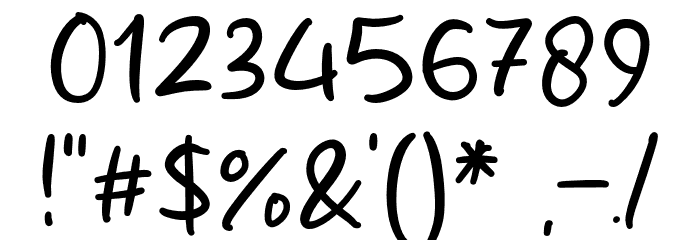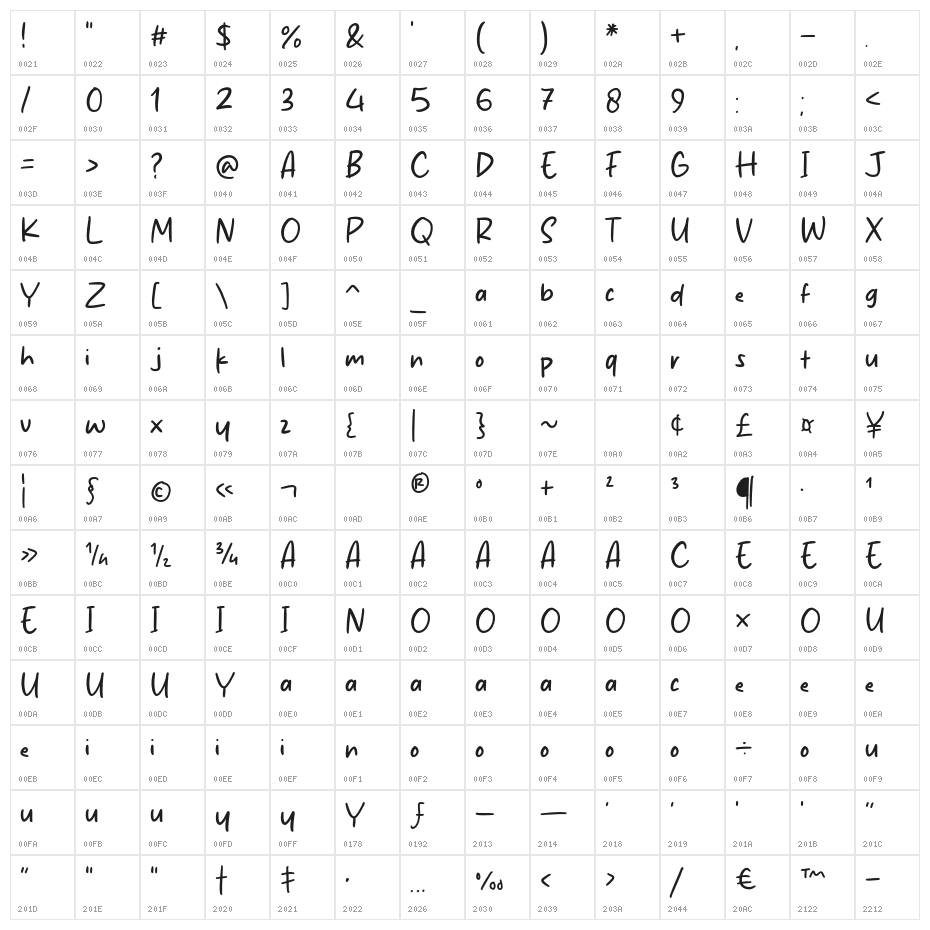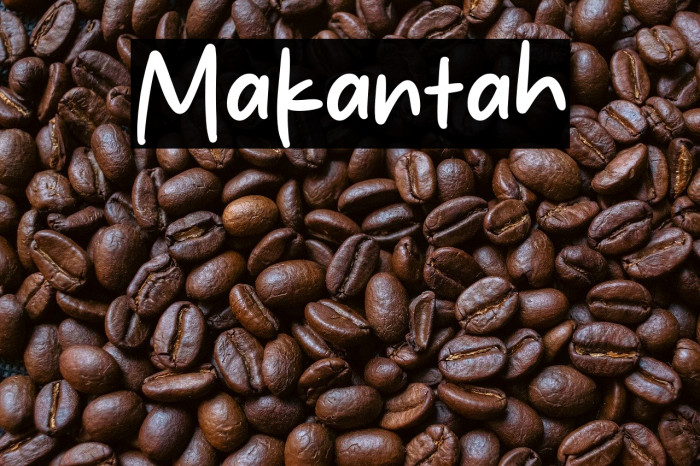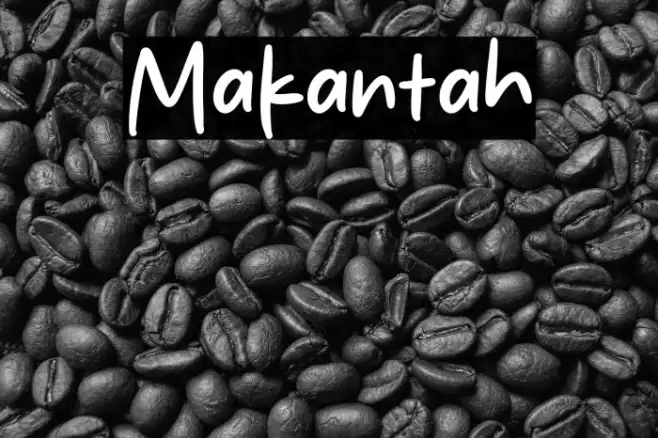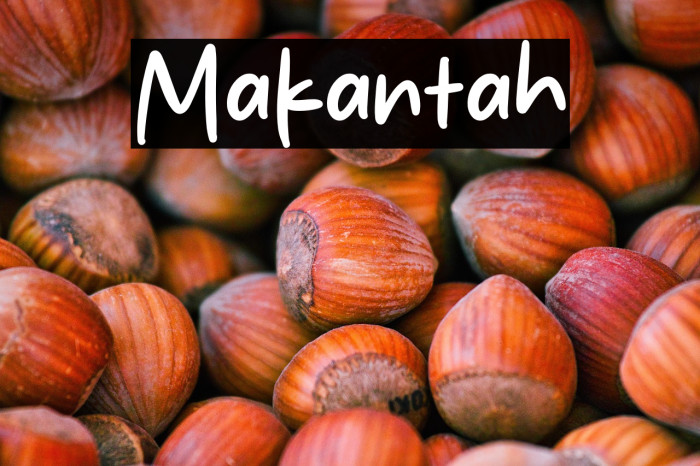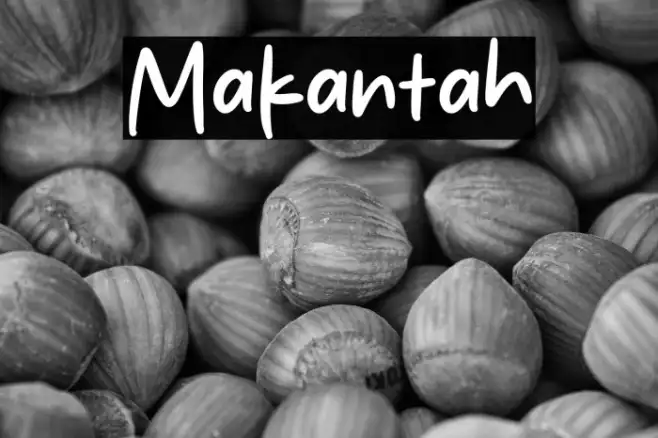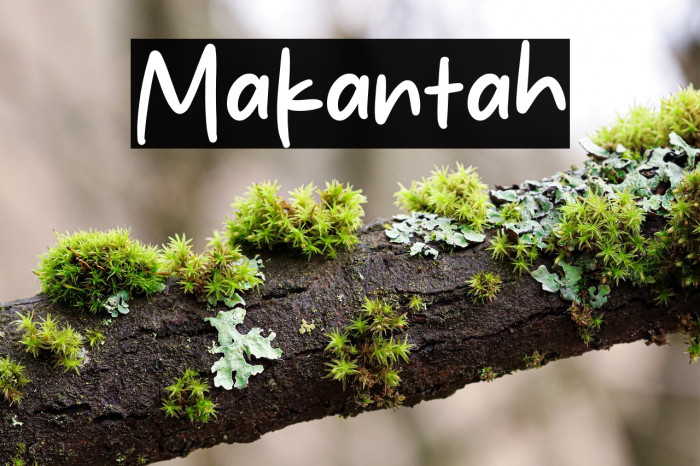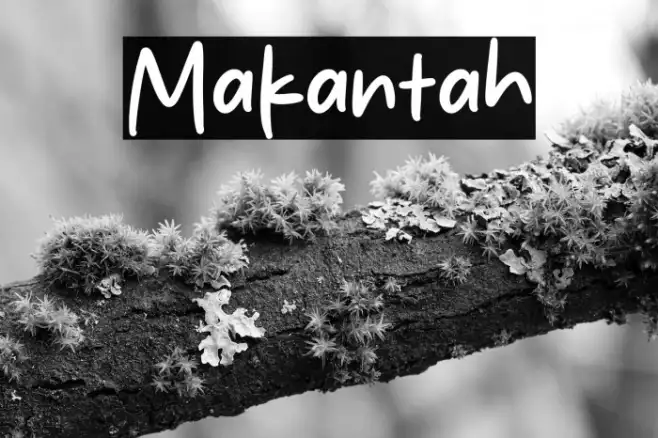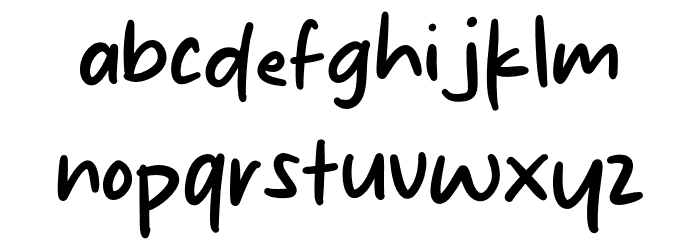
Makantah Font
Makantah Description
This font exudes a playful and casual handwritten style, characterized by its smooth, flowing lines and slightly irregular shapes. The letters are bold and rounded, giving them a friendly and approachable appearance. The uppercase and lowercase letters maintain a consistent style, with the lowercase letters being slightly smaller and more compact. The numbers and special characters follow the same playful aesthetic, making them easily readable and visually appealing. This font is perfect for projects that require a personal touch, such as invitations, greeting cards, or informal branding. Its unique style stands out while remaining legible, making it versatile for various design needs.
| Proposed Projects | Ideal for invitations, greeting cards, informal branding, and personal projects. |